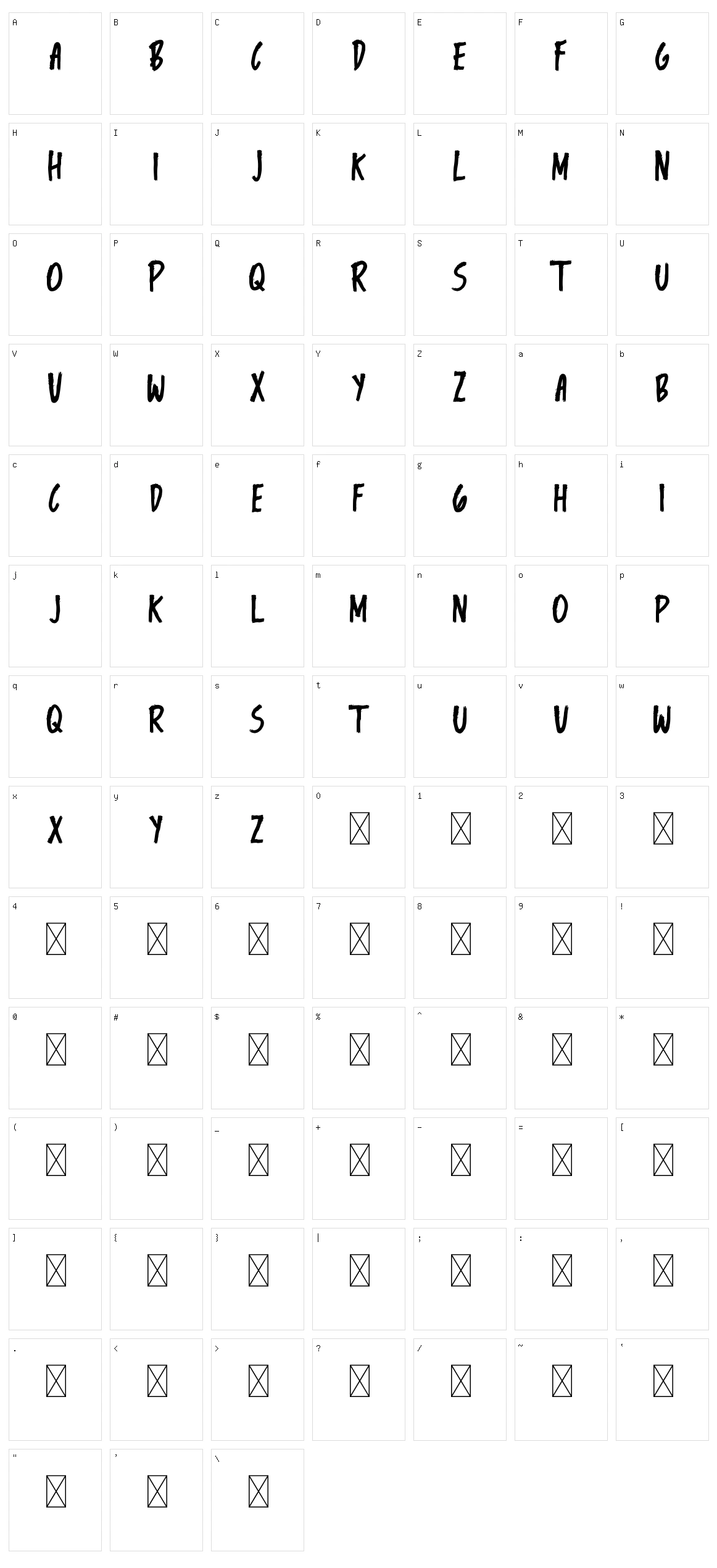
The free font Khensin is carefully designed by Edric Studio, showcasing a thoughtful balance of creativity and usability and falls under the Script font style. When you download the ZIP file, it contains only 42.44 KB of font files, making it lightweight and quick to download. Please review the license details below to understand permitted usage and distribution rights. If license information is not available, we recommend using this font for personal projects only or contacting the author directly for commercial usage permissions.